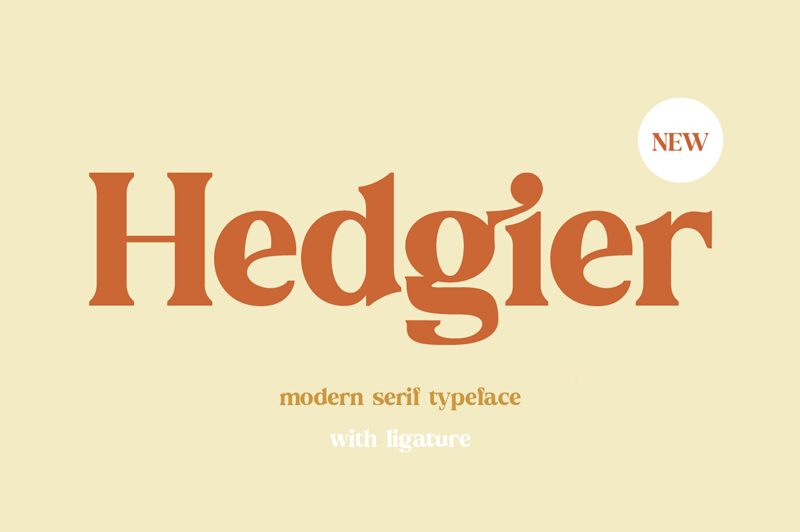
Hedgier is a bold serif font designed by Farida Kurniawan. It's perfect for creating an elegant and sophisticated look for branding, logos, posters, flyers, and magazines. It can also be used to add unique flair to wedding invitations and other special events.
Hedgier